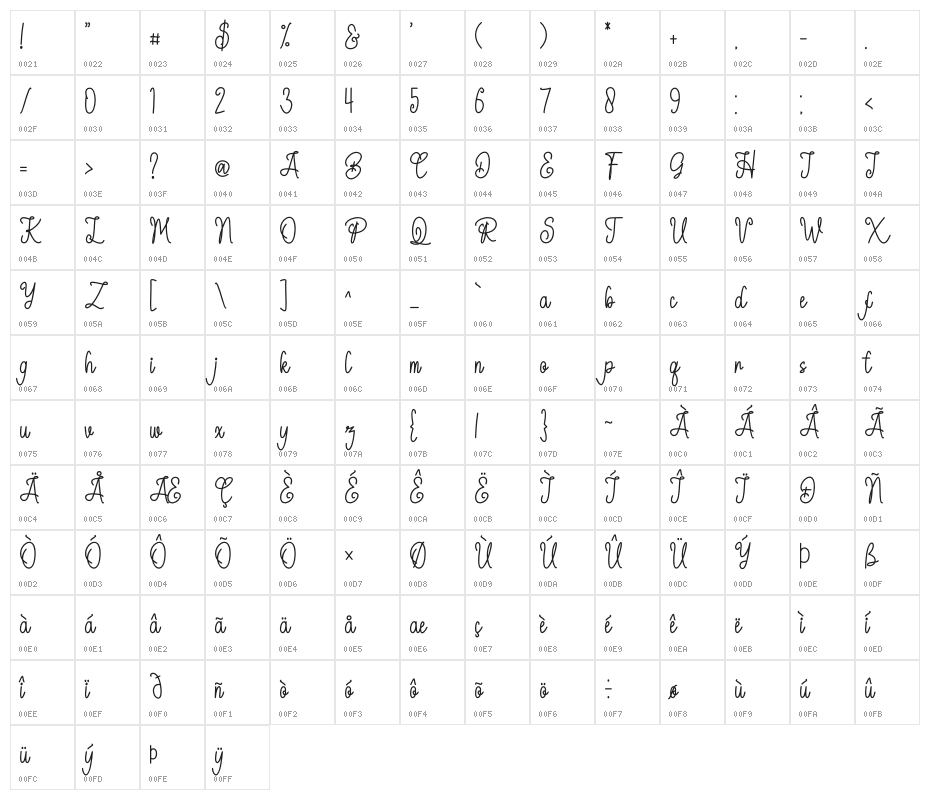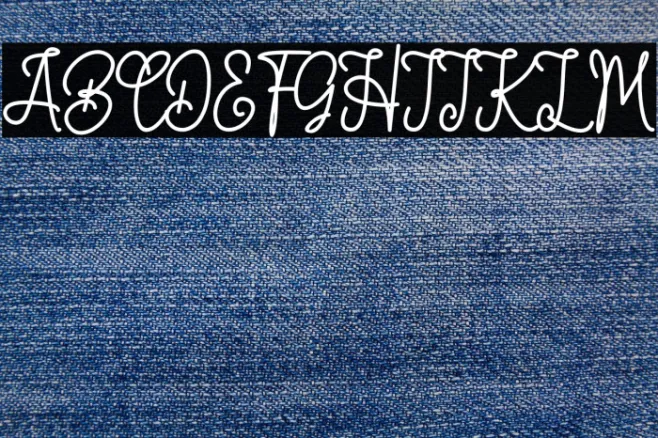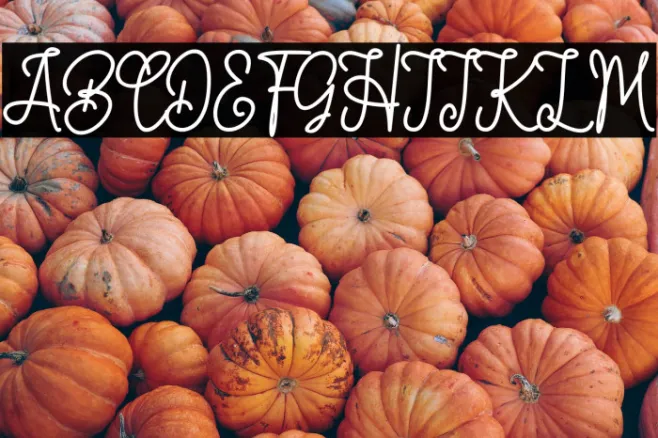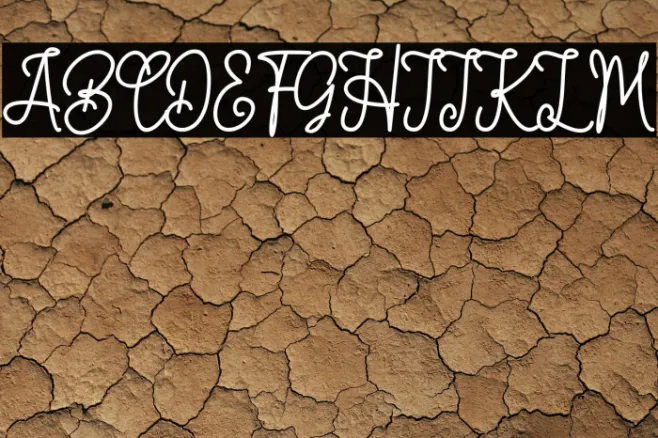
Beautyline Font
Beautyline Description
This font features an elegant and flowing script style, characterized by its smooth, cursive lines and graceful curves. The uppercase letters are tall and slender, with distinctive loops and swirls that add a touch of sophistication. The lowercase letters maintain a consistent flow, enhancing readability while preserving the decorative essence. Numbers and special characters are crafted with the same attention to detail, ensuring a cohesive look across all text. This font exudes a sense of elegance and charm, making it ideal for projects that require a personal and artistic touch.
| Proposed Projects | Ideal for wedding invitations, greeting cards, branding, and elegant logos. |